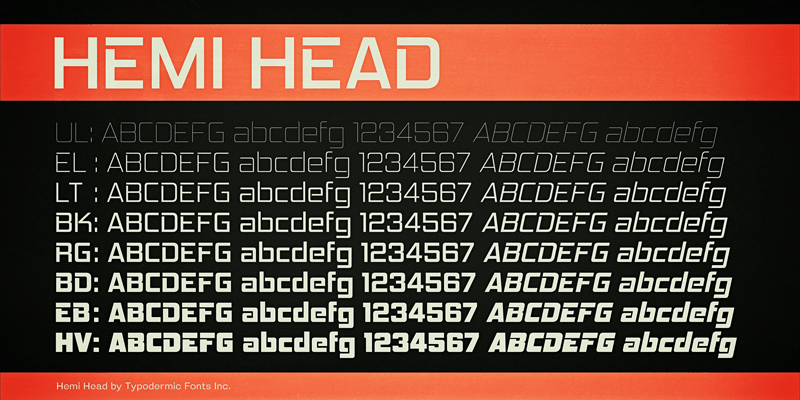
In the times of the ancients, I made a font inspired by the old Dodge logo. I recently, rebuilt the whole thing and expanded it into a larger family. The original Hemi Head 426 was a bold italic, just like the old Dodge logo. The new Hemi Head Bold Italic is free for commercial use. This font includes a license that allows free commercial use: sometimes referred to as a desktop license. This allows you to install the font on a computer and use it to create posters, web graphics, game graphics, t-shirts, videos, signs, logos and more. Read the license agreement for details. If you'd like to embed this font in an app, ebook, on the web or anything that's not covered by the desktop license agreement, visit the link below. You'll find distributors who offer different types of licenses or you can contact me for help. http://typodermicfonts.com/return-of-the-hemi-head-muscle-font/ This free font is part of a larger font family. Check out the rest of the family through the link above. |